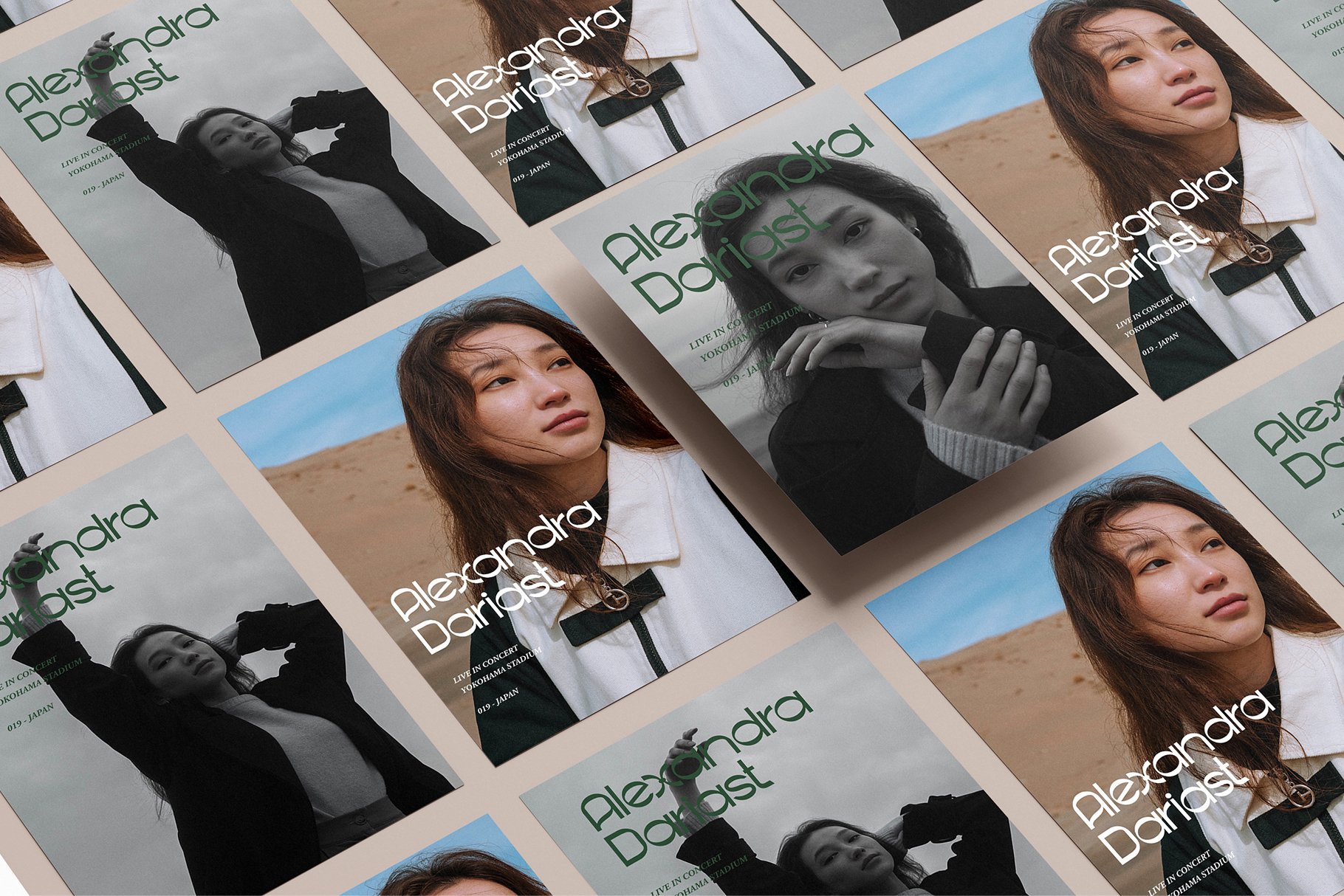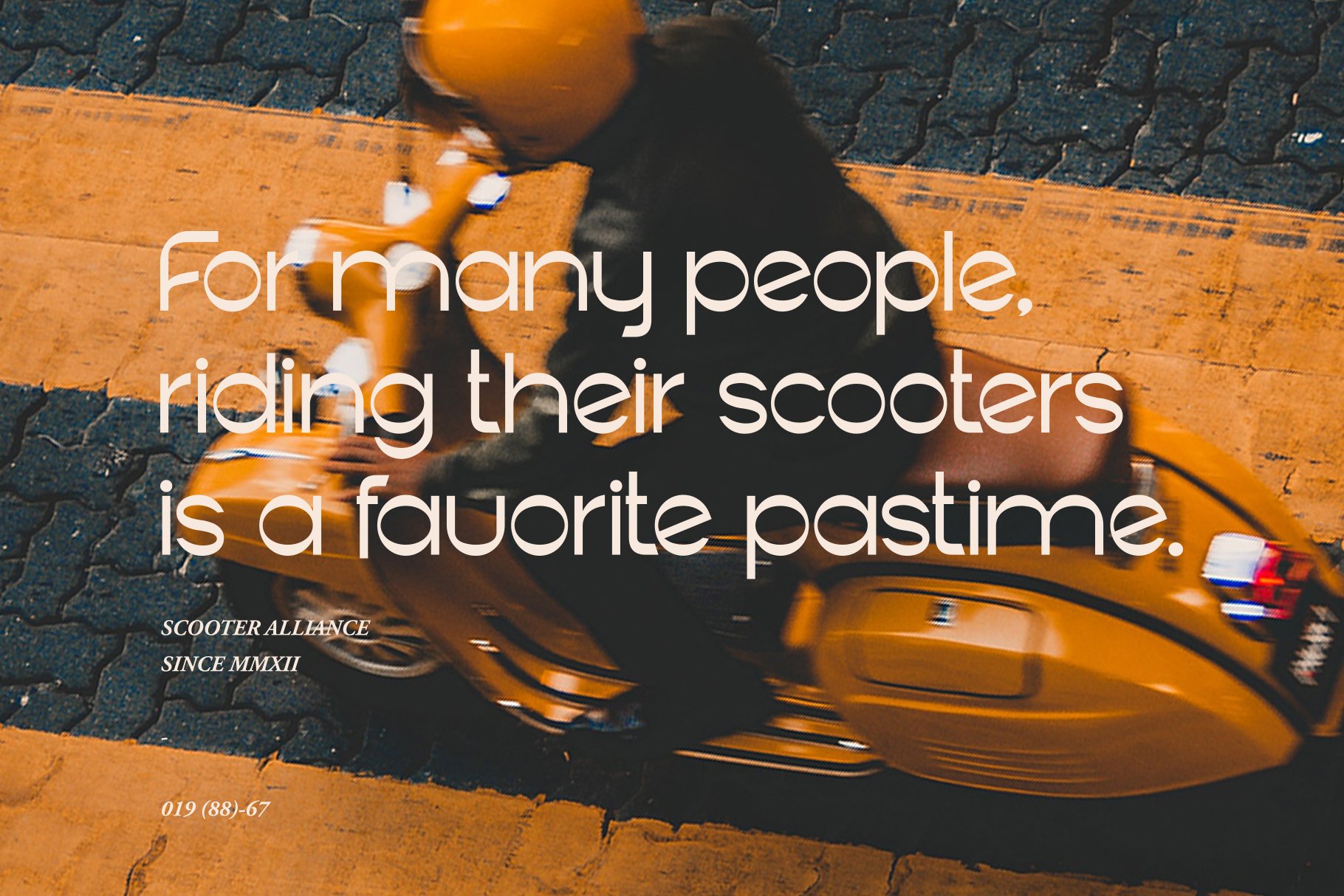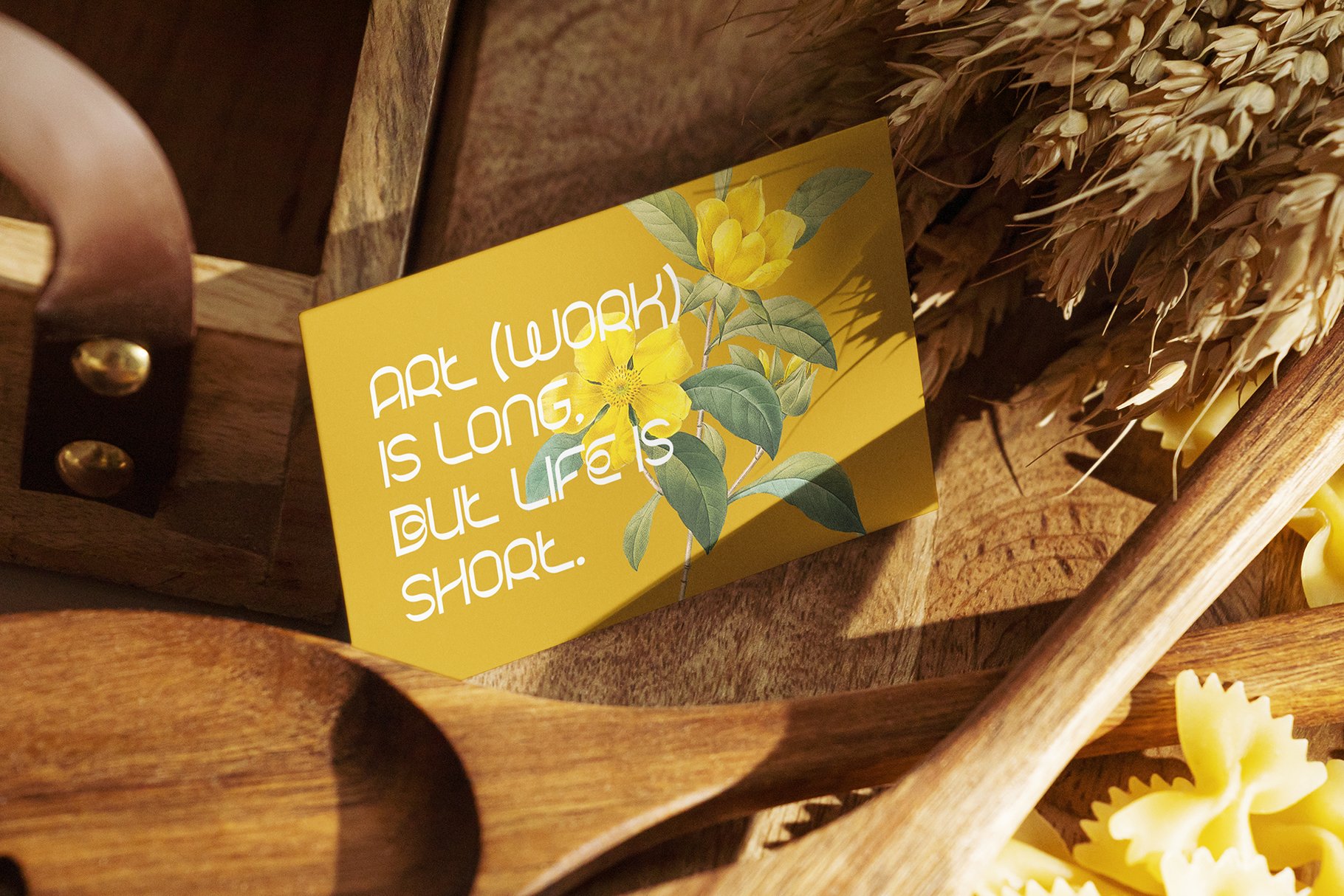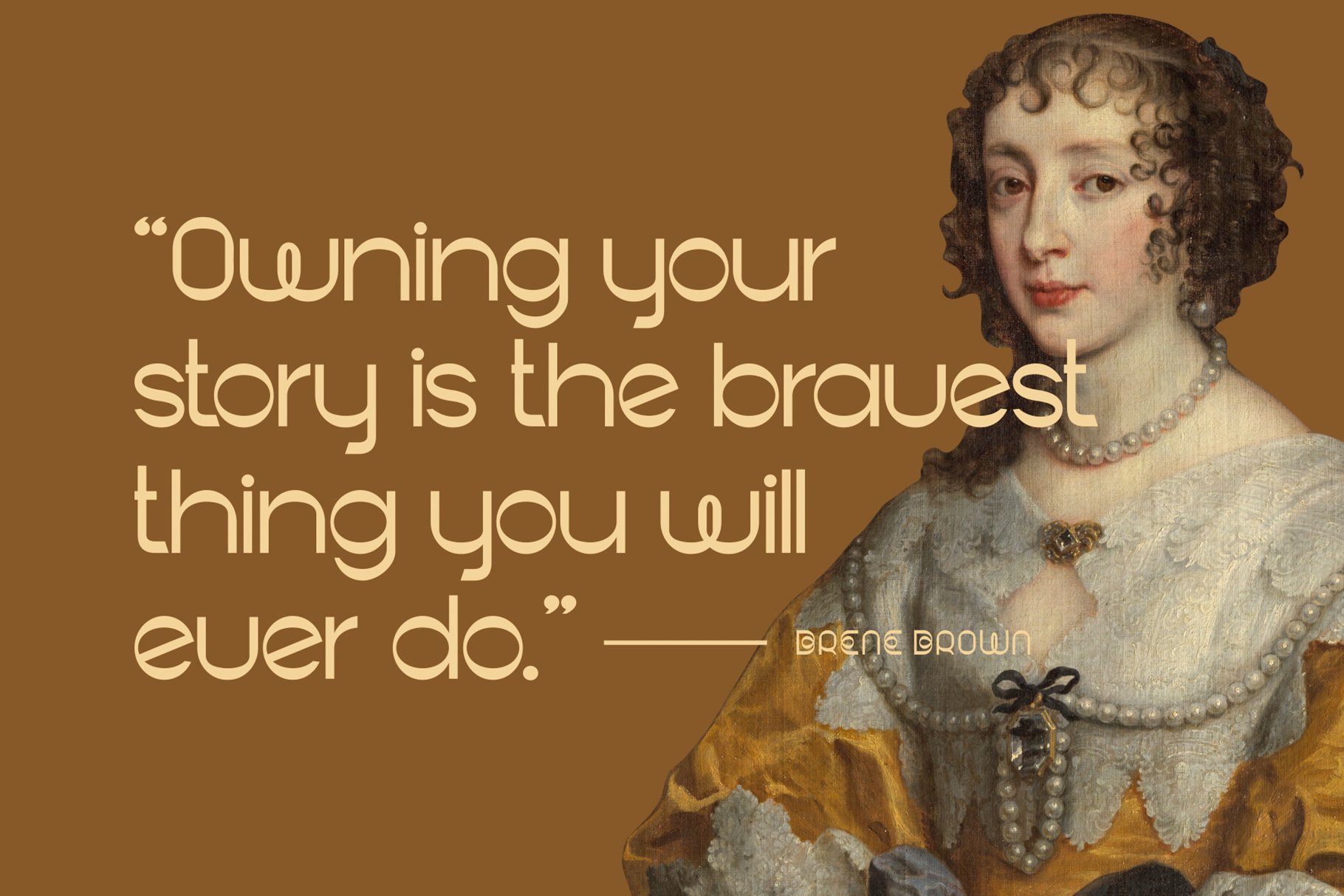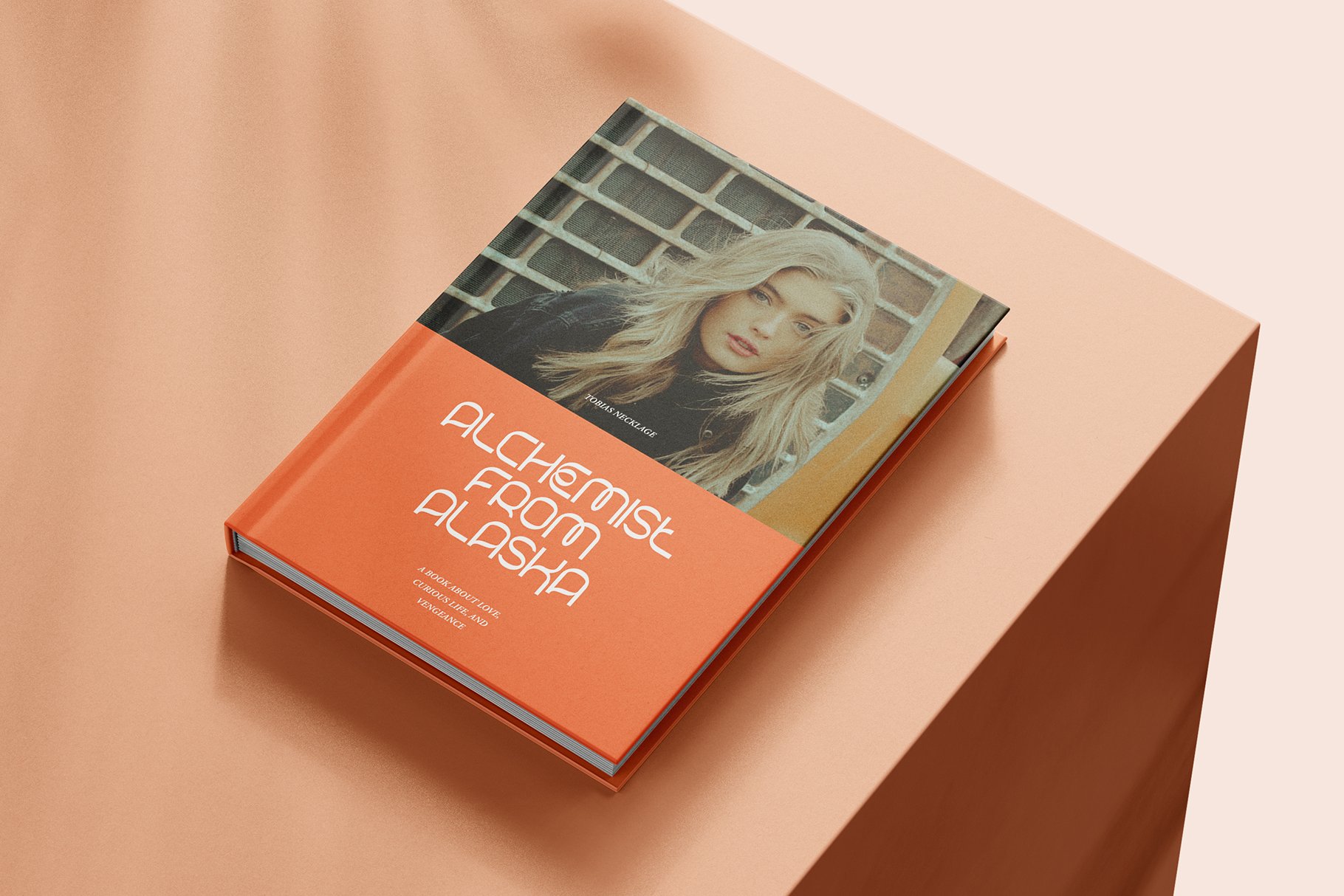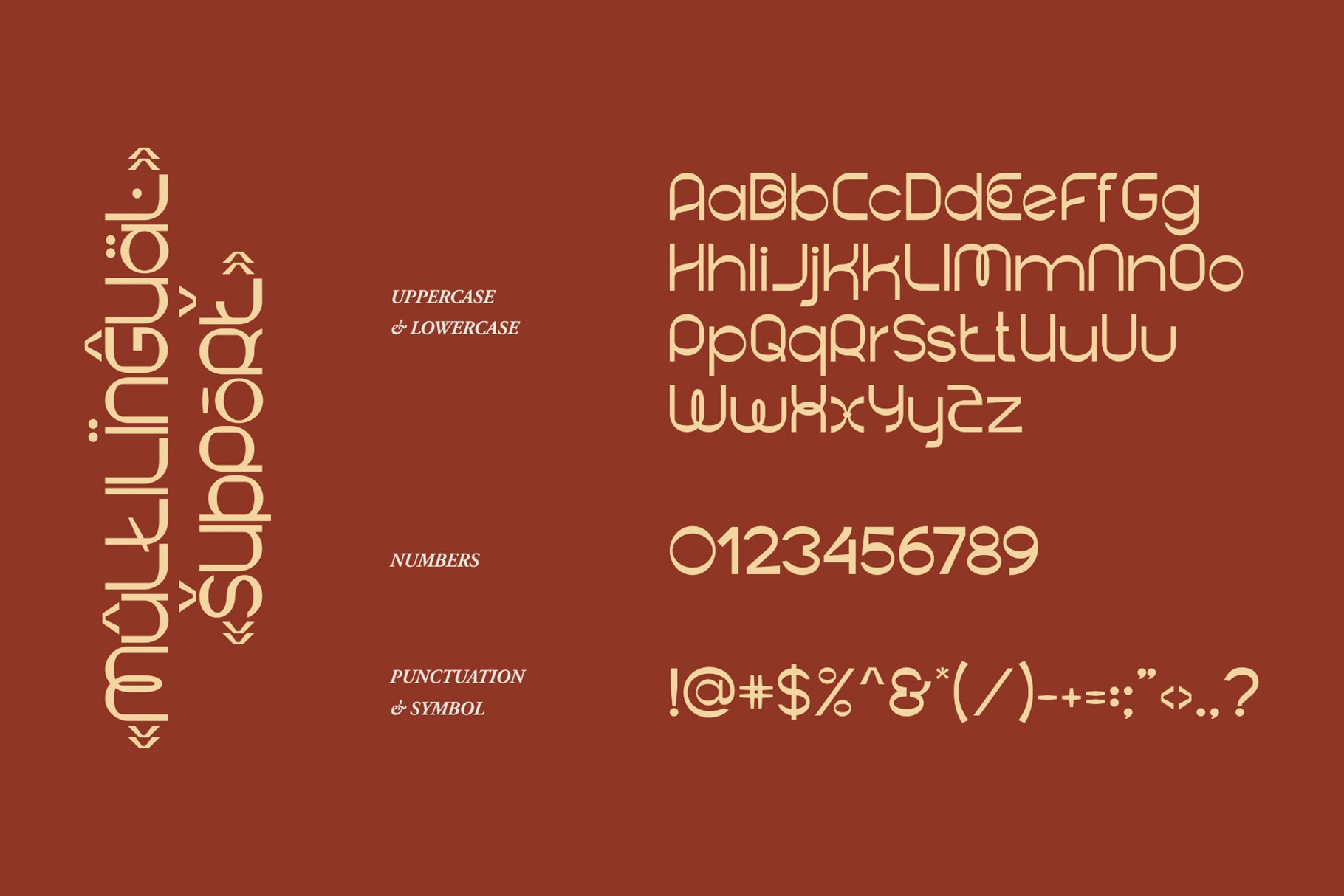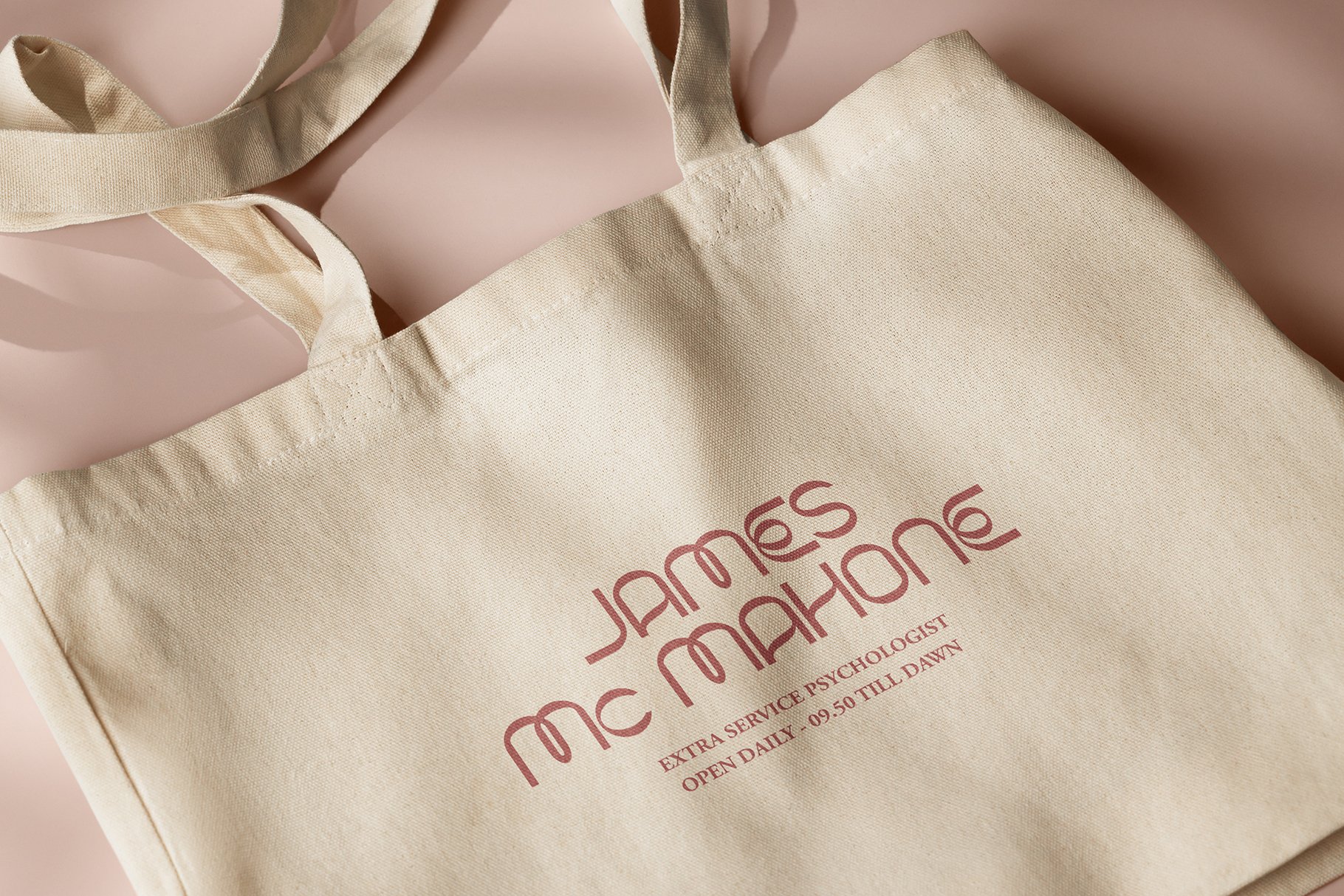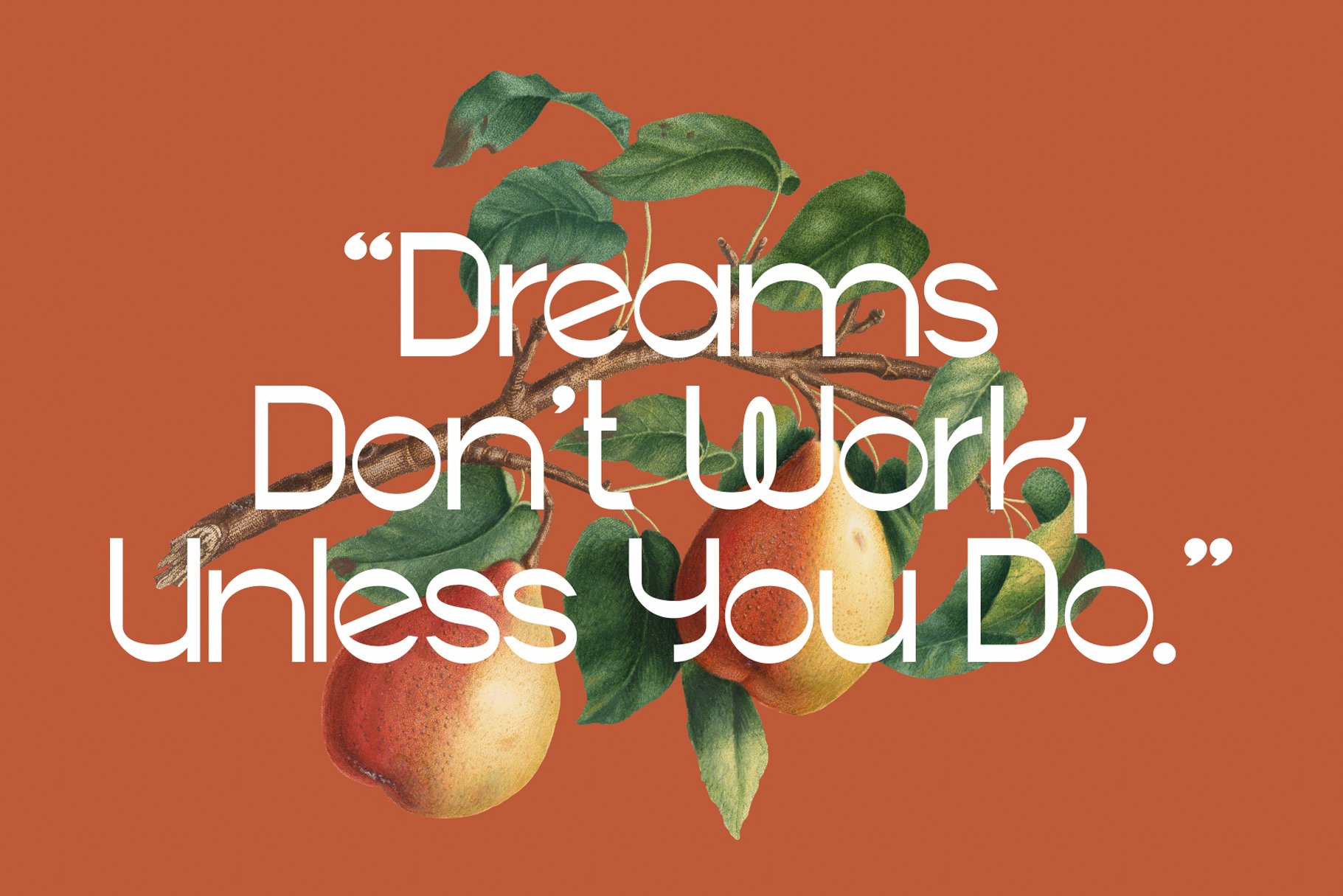
BAKEGO - Unique & Modern Typeface
BAKEGO is is a fun, unique and modern display font. Masterfully designed to become a true favorite, this font has the potential to bring each of your creative ideas to the highest level! It was purposely crafted to be used in large point sizes, although it doesn’t lose its magic in small point sizes. It is perfect for headline, billboard, magazines, website, titles, poster, branding, and logos. No matter the topic, this font will be an incredible asset to your fonts’ library, as it has the potential to elevate any creation. With this beautiful font, absolutely you can make your project stand out from the rest. See the previews above to get some inspiration on how to use them.
• 2 Styles: Regular & Slant
• Contains 231 Glyphs for Each Style (Total: 462 Glyphs)
• Uppercase, Lowercase, Numeral, Punctuation & Symbol
• Multilingual Support. Support for 44 languages: Asu, Bemba, Bena, Chiga, Cornish, Embu, English, Estonian, Filipino, Gusii, Indonesian, Kabuverdianu, Kalenjin, Kamba, Kikuyu, Kinyarwanda, Luo, Luyia, Machame, Makhuwa-Meetto, Makonde, Meru, Morisyen, North Ndebele, Nyankole, Oromo, Quechua, Rombo, Rundi, Rwa, Samburu, Sangu, Shambala, Shona, Soga, Somali, Swahili, Swiss, German, Taita, Teso, Uzbek (Latin), Volapük, Vunjo, Zulu.